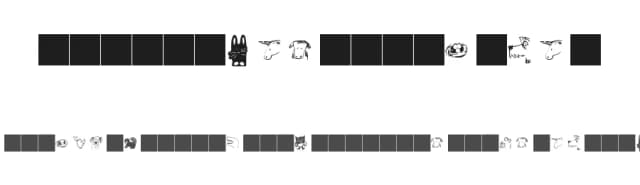
About GM Doodles Food Font
GMDoodles_Food dingbat font
Doodles by GM(dingbat font made by g)
This was a family project...hand drawn doodles by my daughter,
Lowercase letters only a-j images.
GM Doodles Food Font
by g14296